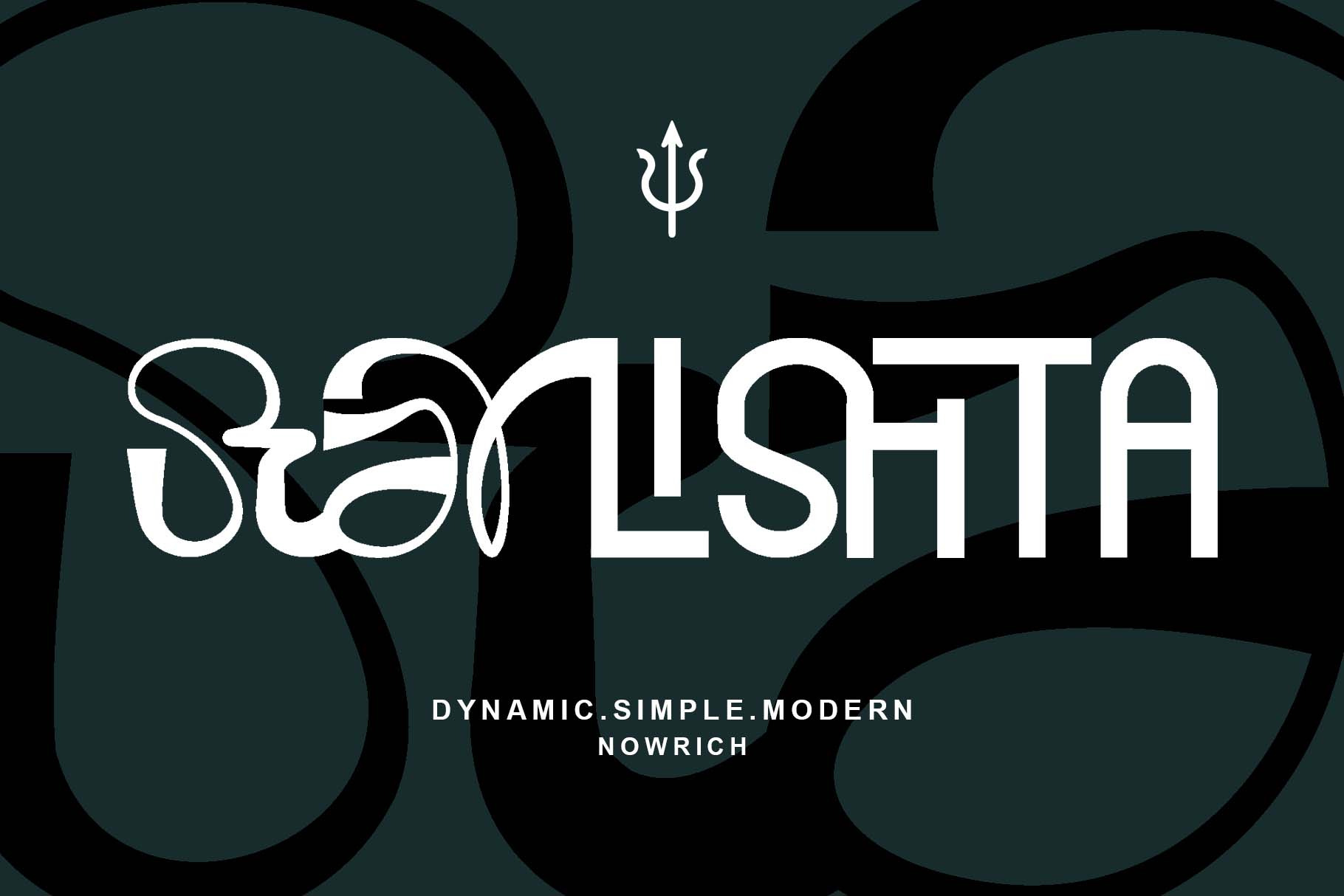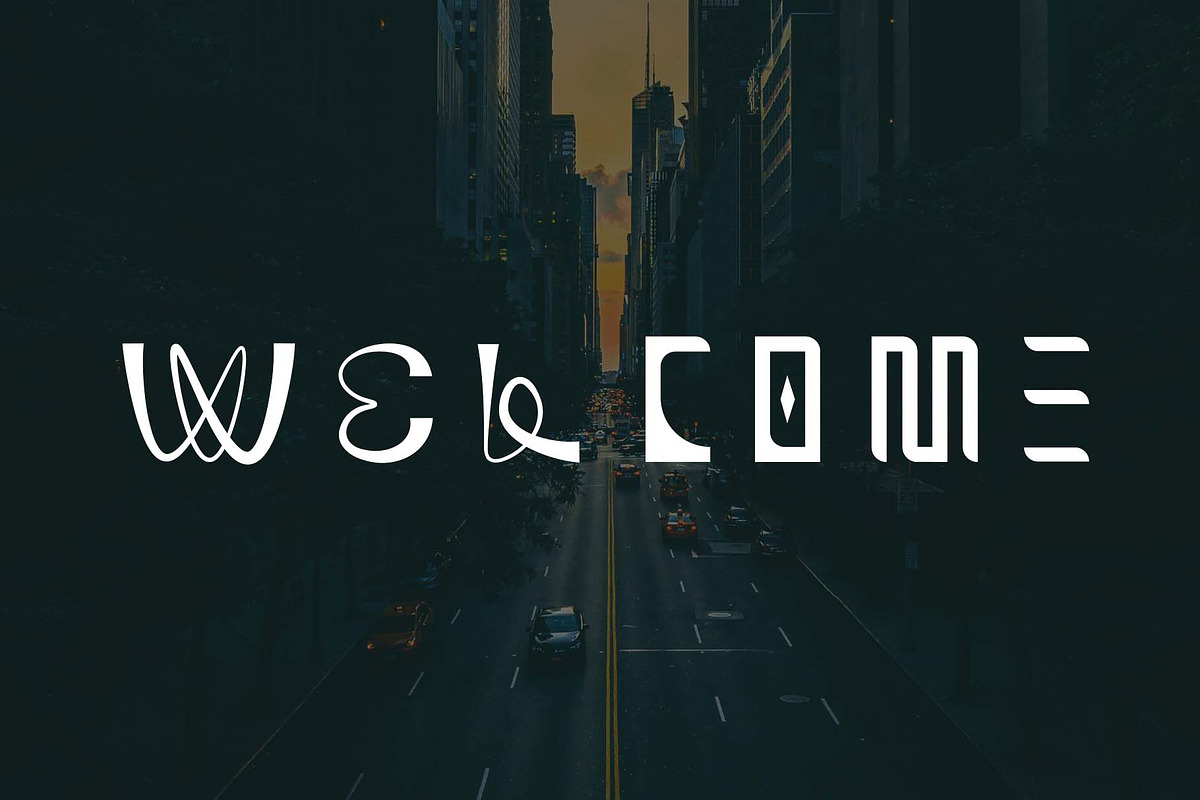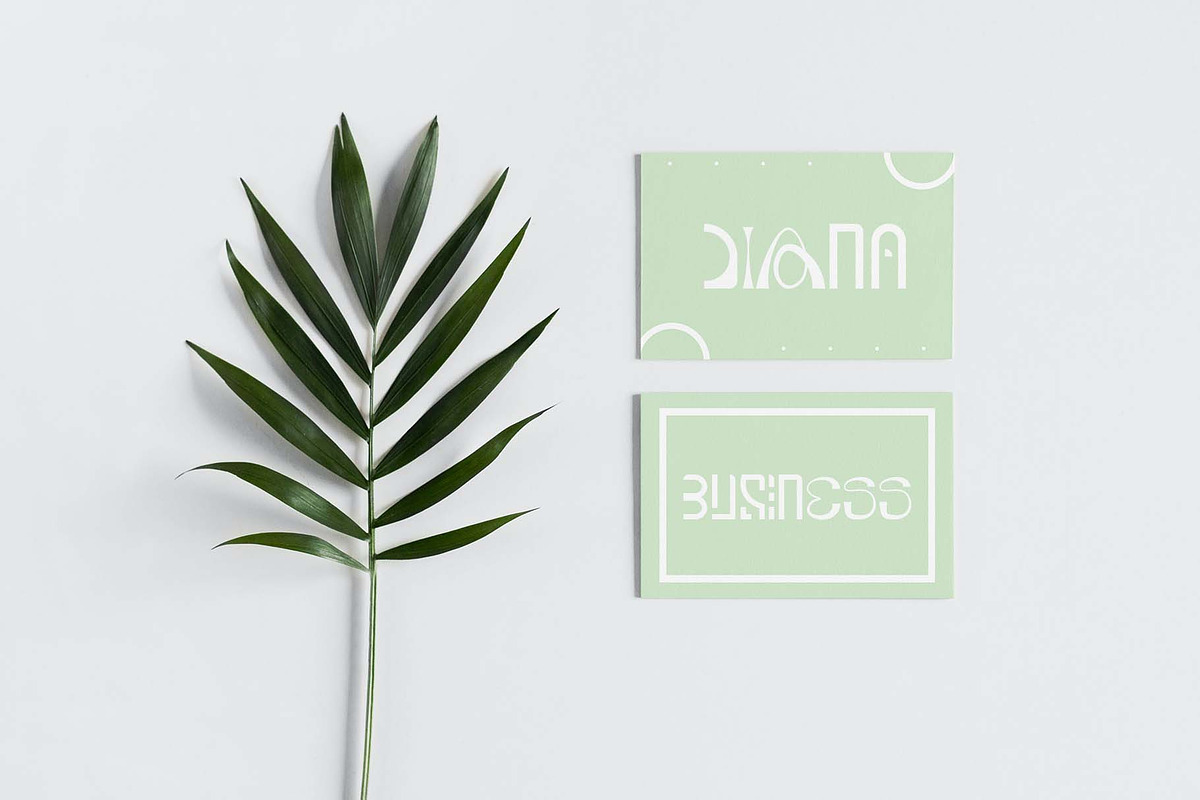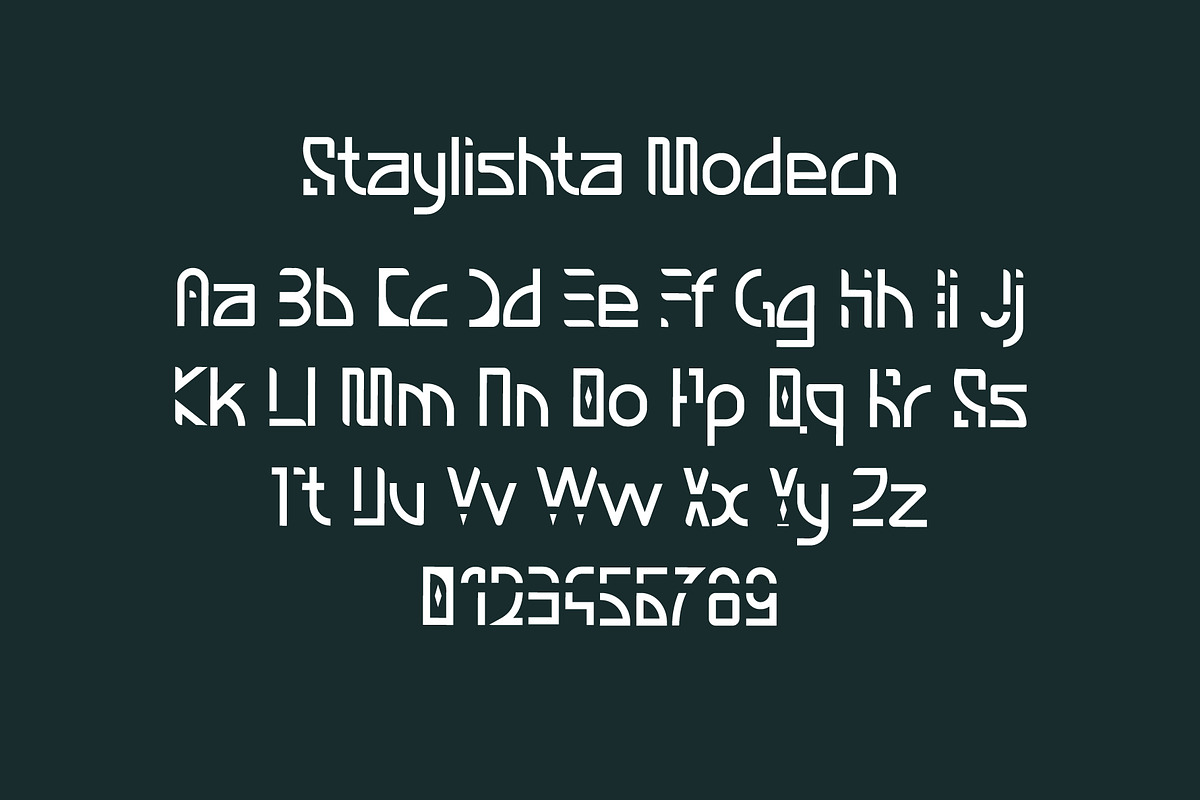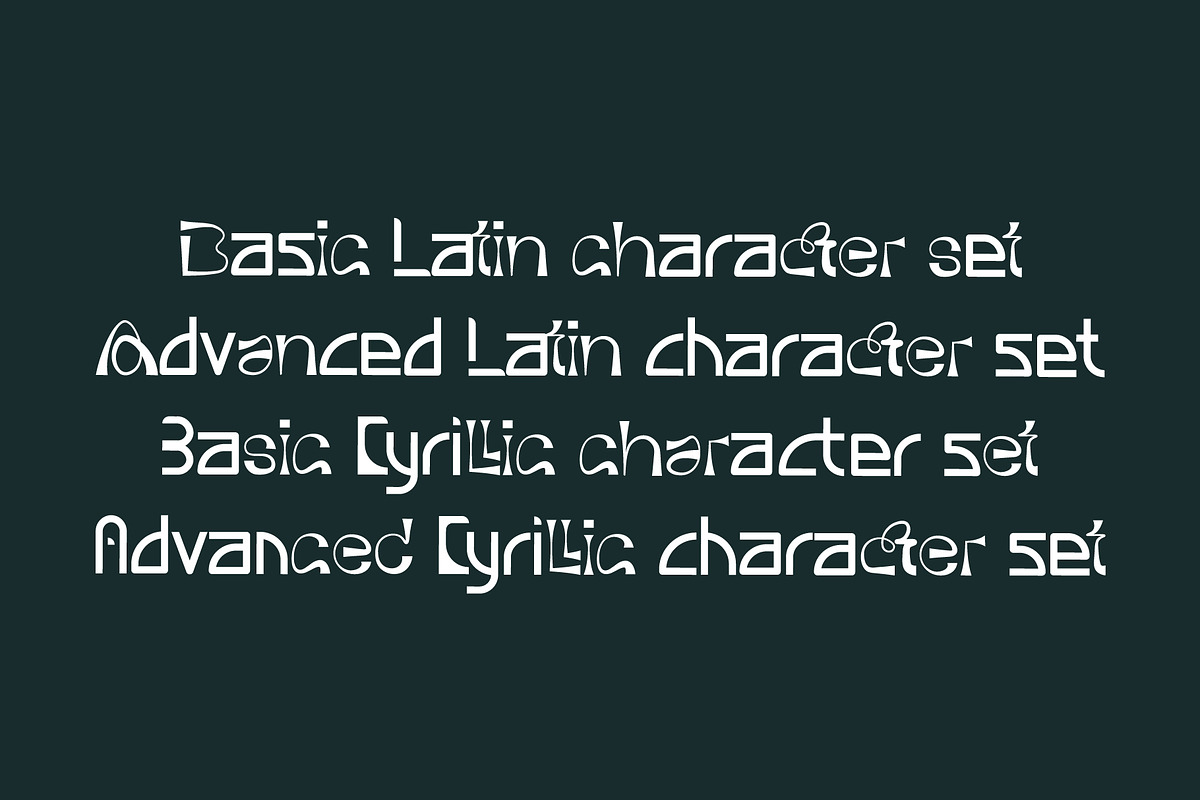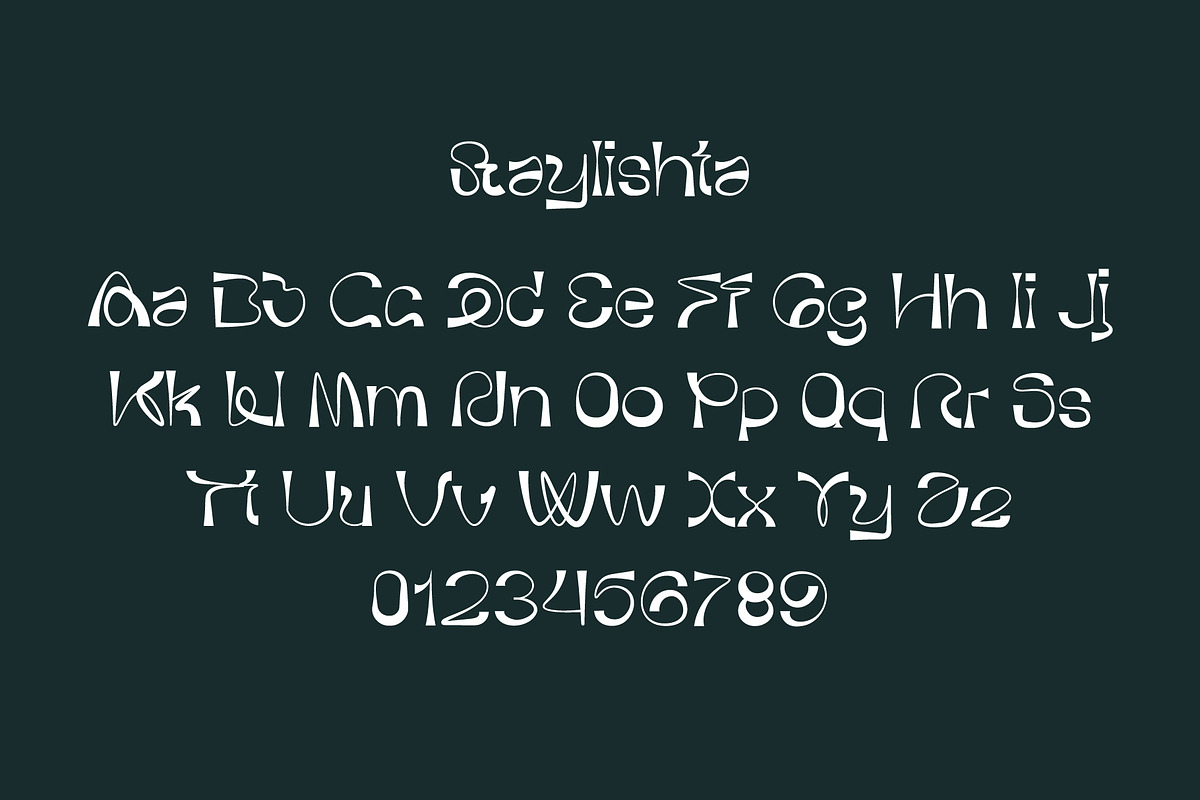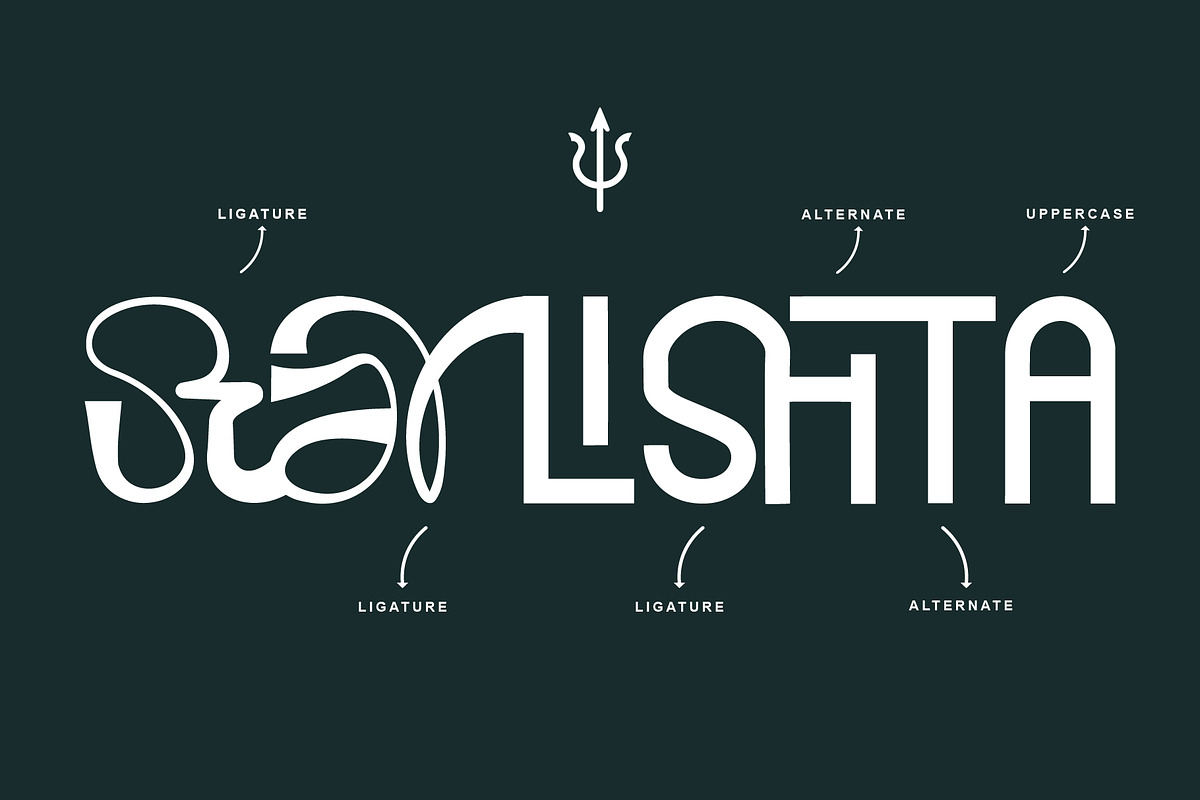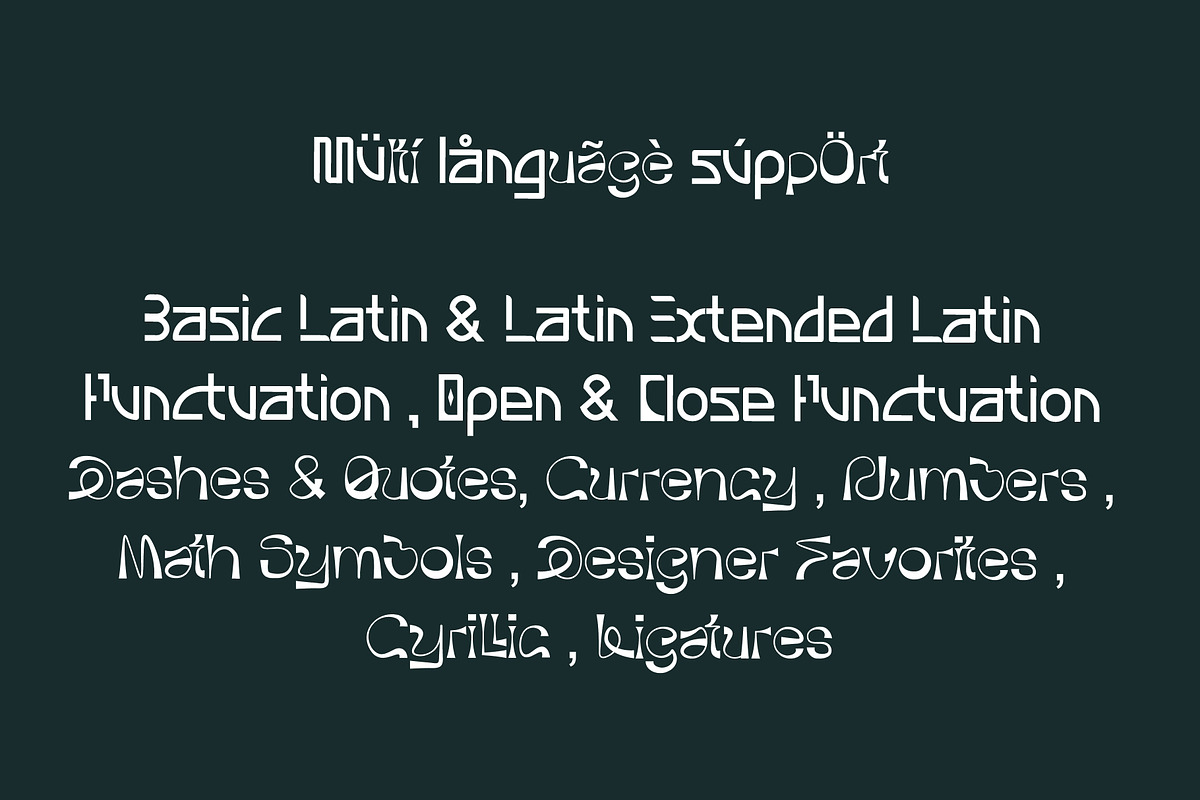
Staylishta Typeface
This font is the epitome of versatility for all your creative endeavors! Ideal for crafting captivating Logotypes, exquisite printed quotes, elegant invitations, stunning cards, chic product packaging, eye-catching headers, sophisticated letterheads, trendy apparel designs, sleek web layouts, captivating magazine spreads, and engaging book covers. Elevate every project with its charm and finesse!
Featured :
- Latin
- Basic Latin
- Extended Latin
- Open & Close Punctuation
- Dashes & Quotes
- Currency
- Math Symbols
- Designer Favorites
- Cyrillic
- Multi language support